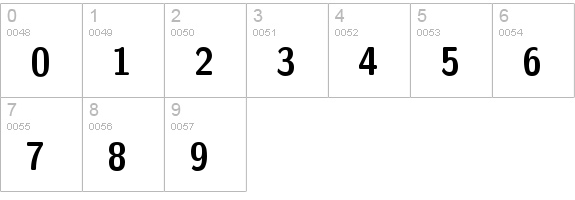
Nova Bold is a strong, high-contrast variant in the Nova typeface family \xE2\x80\x94 well suited to headlines, attention-grabbing titles, and strong calls-to-action.
Nova Bold is a modern and stylish typeface that exudes confidence and strength. Its bold and distinctive design makes it perfect for headlines, titles, and branding projects that demand attention. The sharp edges and clean lines of Nova Bold give it a contemporary and sleek look that is sure to make a statement. The best part about Nova Bold is that it is available for free download at FontsMarket.com. This means you can easily access this versatile font and use it in your various design projects without any cost. Whether you are a professional designer looking for a bold typeface to elevate your work or a hobbyist seeking a high-quality font for personal projects, Nova Bold is a fantastic choice that won't cost you a dime. Download Nova Bold today and add a touch of modern sophistication to your designs!